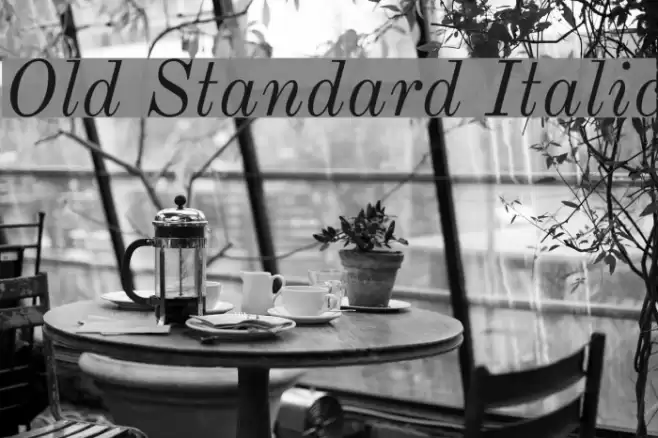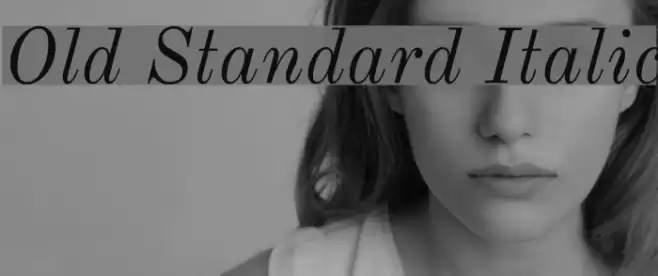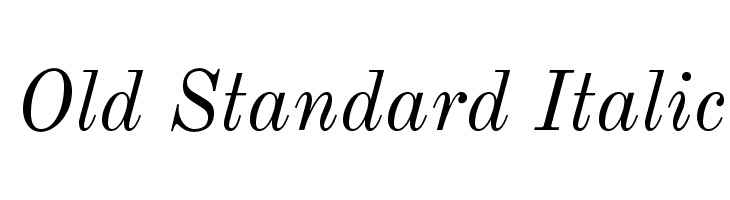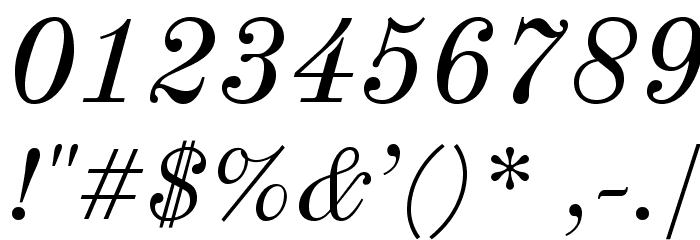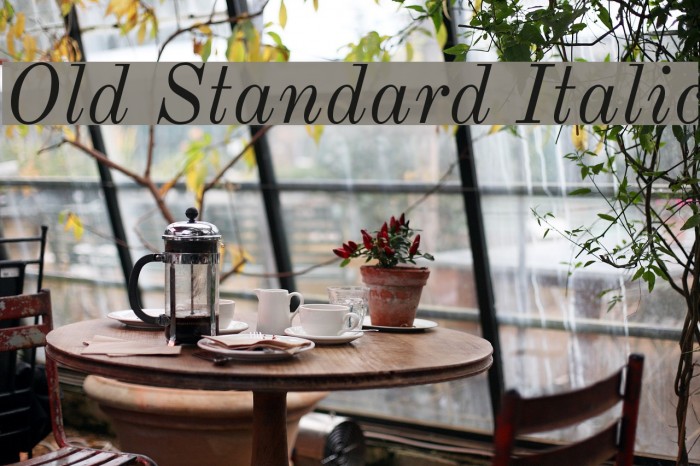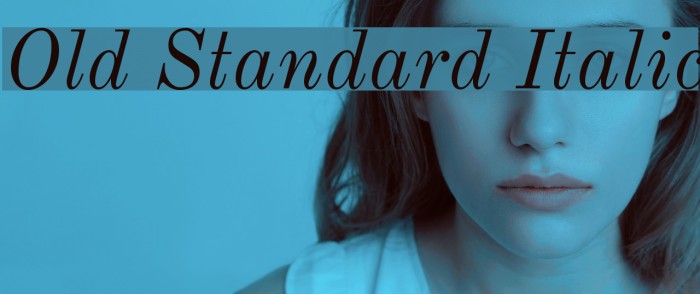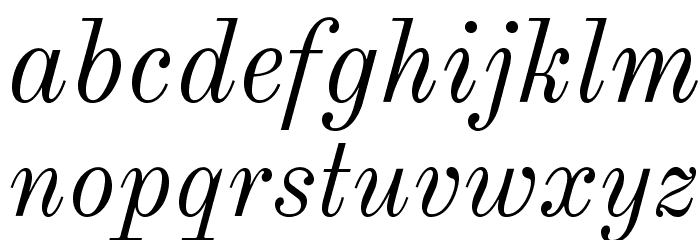
Old Standard Italic
This font exhibits a classic and elegant style with a distinct italic slant, reminiscent of traditional serif typefaces. The characters are gracefully elongated, with fine serifs that add a touch of sophistication. The uppercase letters are bold and commanding, while the lowercase letters maintain a smooth and flowing appearance. Numerals are well-proportioned, ensuring readability. The special characters are designed with the same attention to detail, making them suitable for a variety of uses. The overall design is balanced, with a medium contrast between thick and thin strokes, enhancing its readability and aesthetic appeal.
An elegant, classic serif font with an italic slant and medium contrast.
- Proposed Projects: Ideal for formal invitations, classic book typesetting, elegant branding, and sophisticated editorial design.
- Category: Serif
- Overall Style: Classic